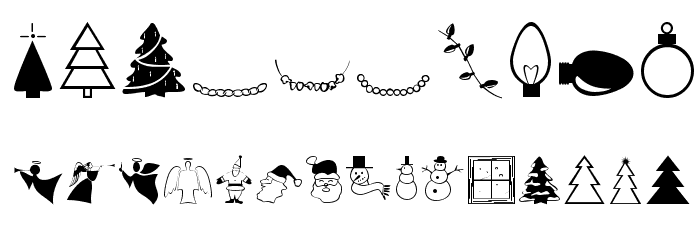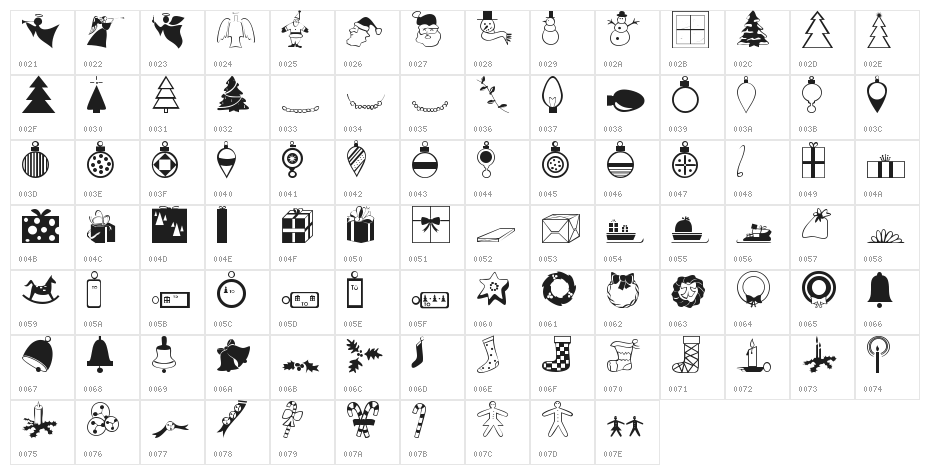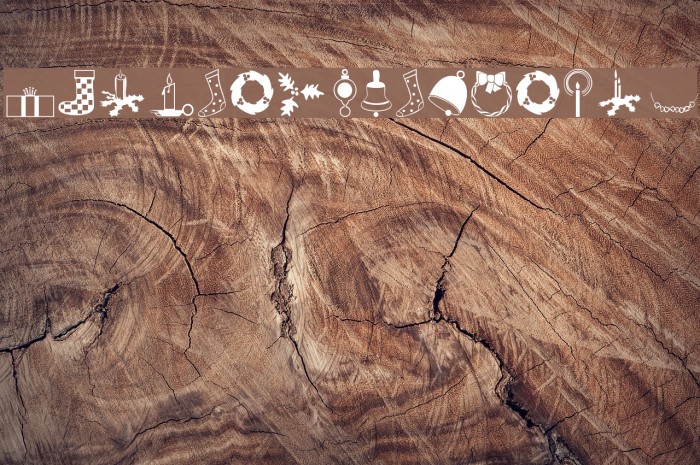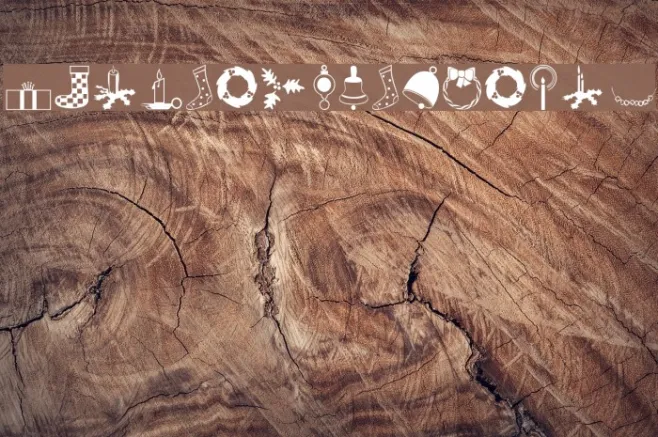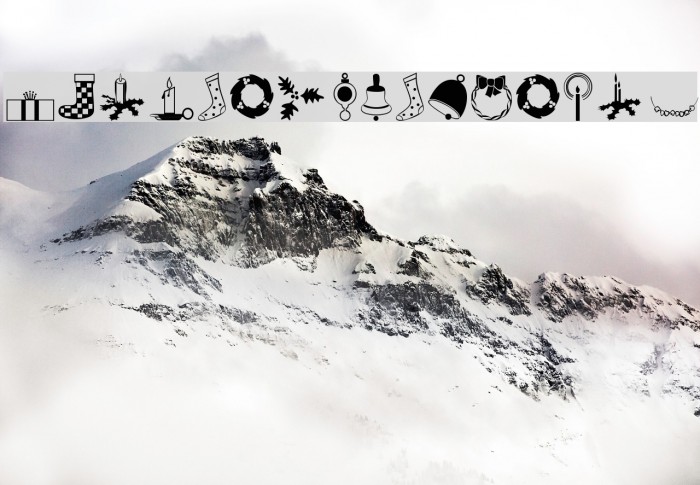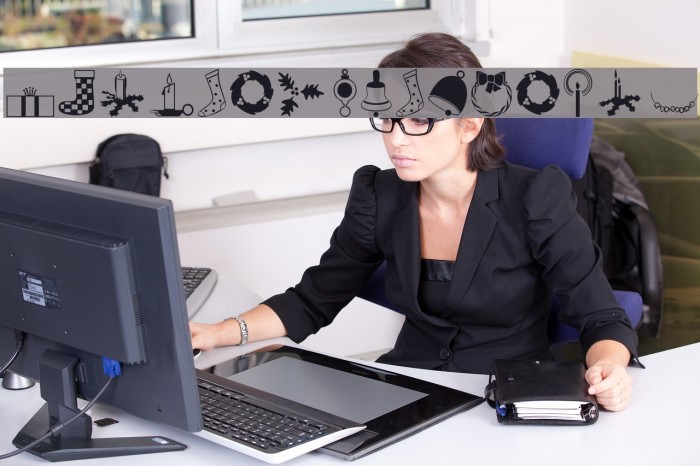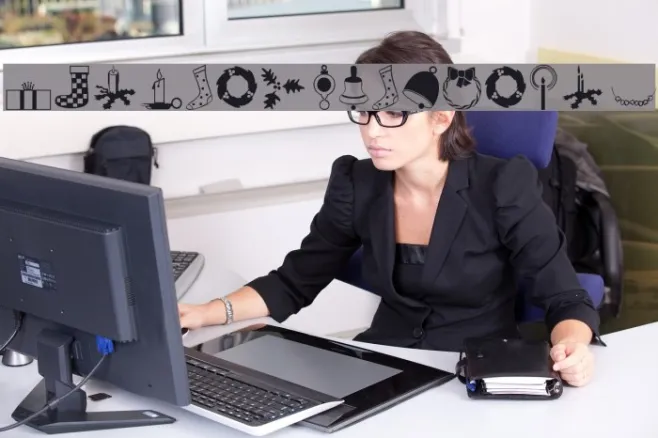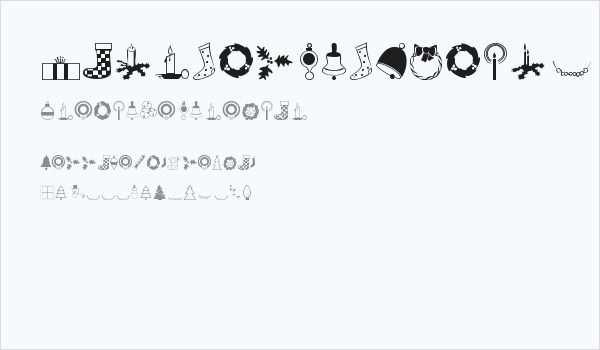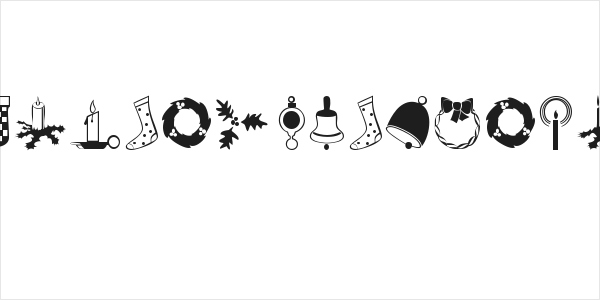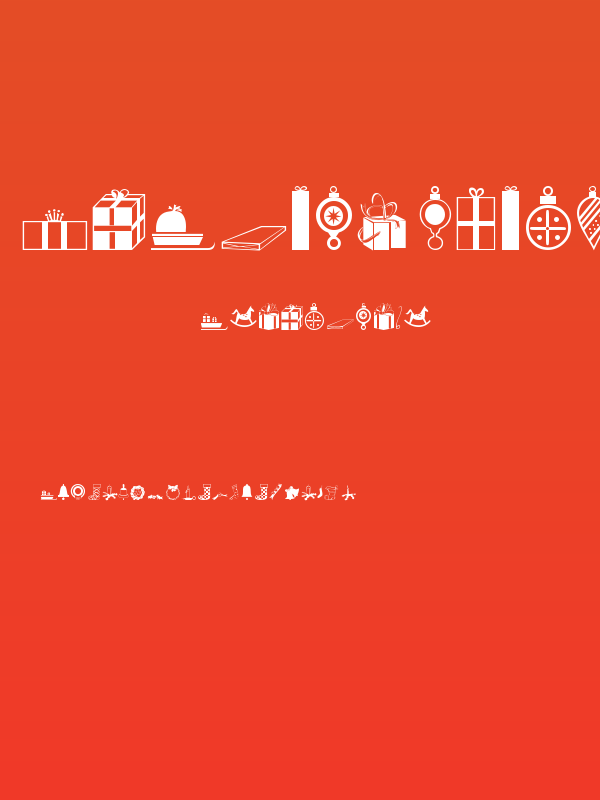
Journal Dingbats 4 Font
Journal Dingbats 4 Description
This collection features a variety of festive and holiday-themed dingbats, perfect for adding a whimsical touch to seasonal projects. The designs include ornaments, gifts, wreaths, bells, stockings, candles, holly, candy canes, Christmas trees, snowmen, and more. Each symbol is crafted with clean lines and bold shapes, making them easily recognizable and versatile for different design needs. The style is playful and decorative, capturing the essence of holiday cheer and celebration. These dingbats can be used to enhance greeting cards, invitations, posters, and other creative projects that require a festive flair.
| Use Case | Logos, Decorative elements |
| Proposed Projects | Ideal for holiday greeting cards, festive invitations, seasonal posters, and decorative crafts. |